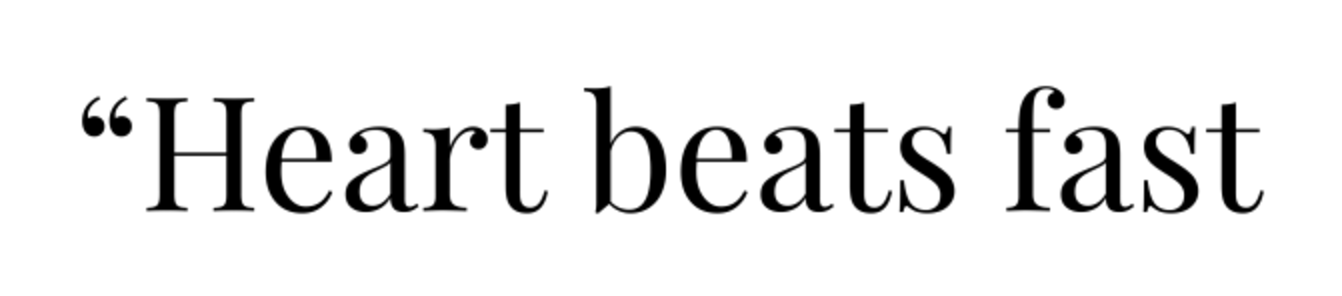
It’s really hard to tell when the sample is so small, but something like Playfair Display will get you in the ballpark. What you’re looking for is a Modern or Didone Serif.
Thanks for your suggestion. However, I found the font that I wanted, it’s called Linotype Didot.